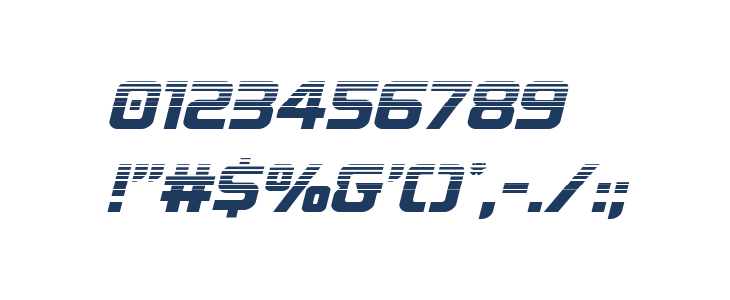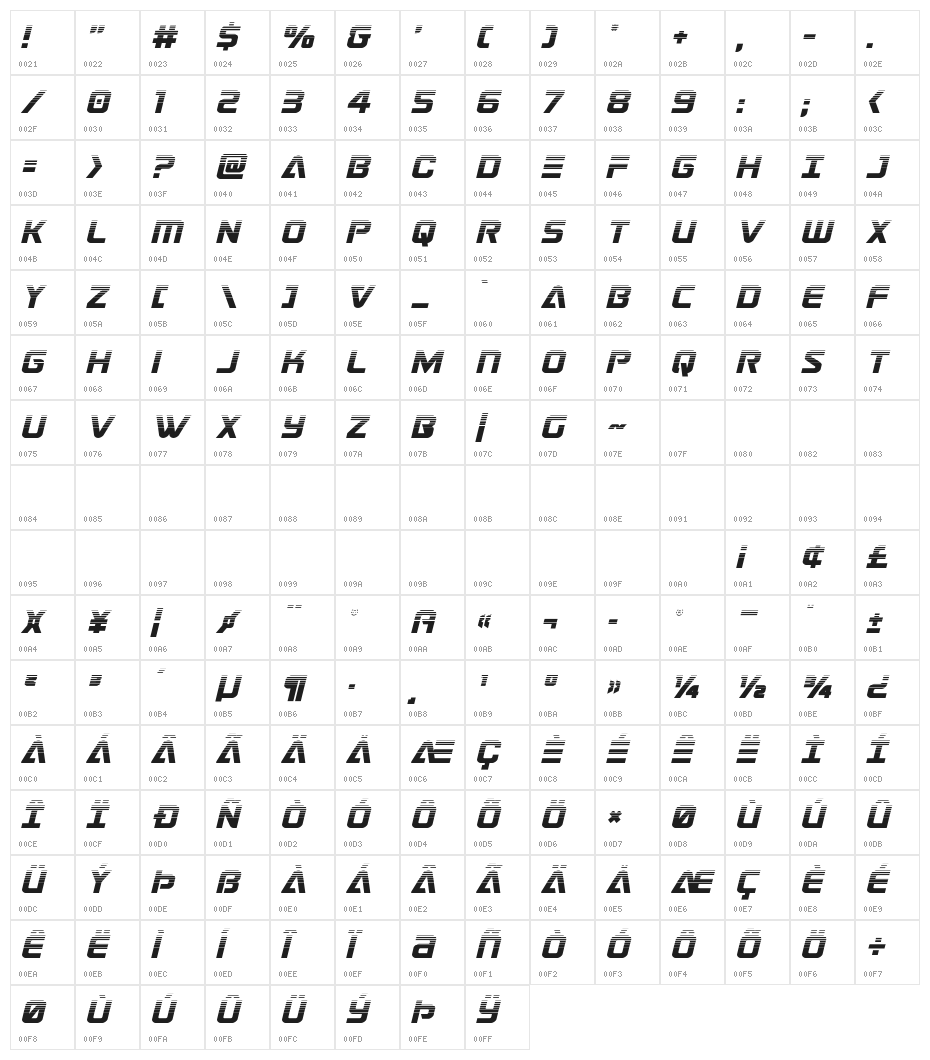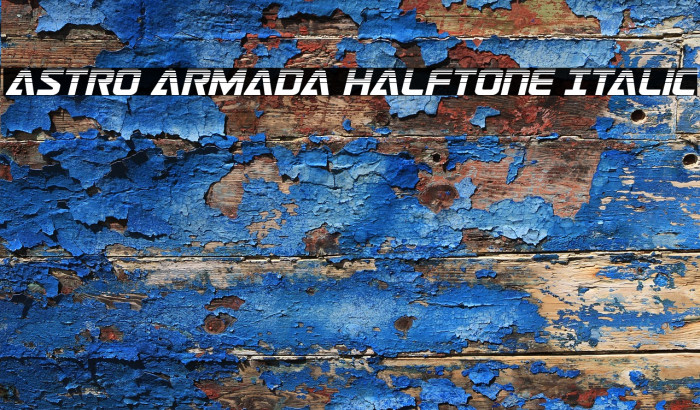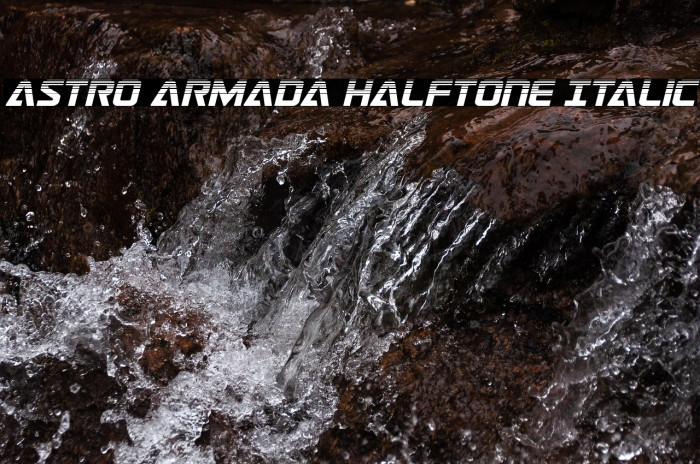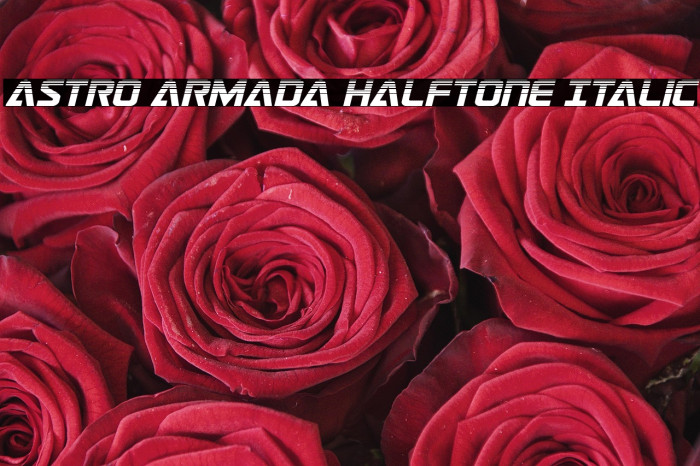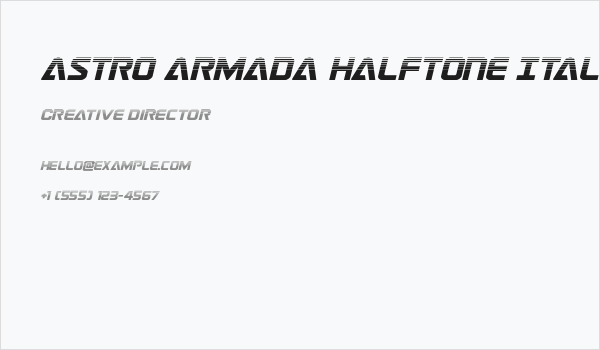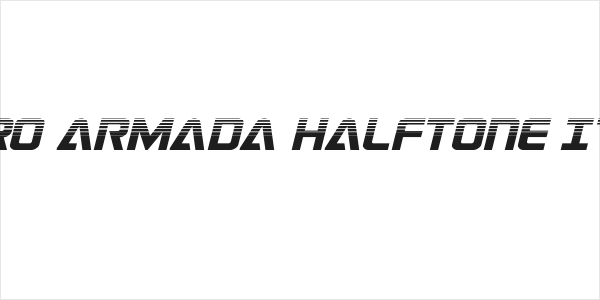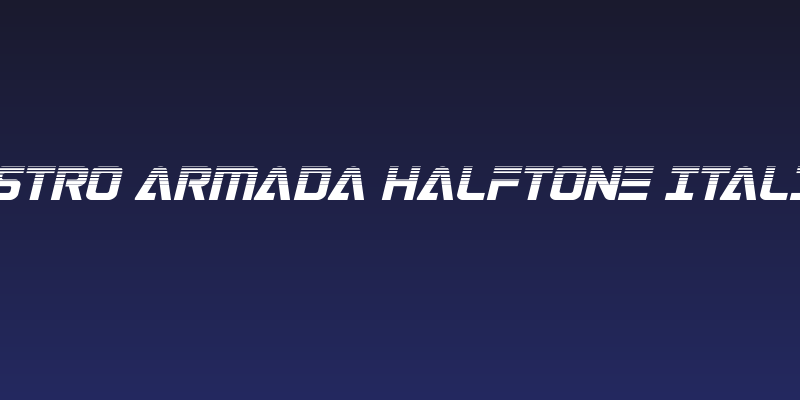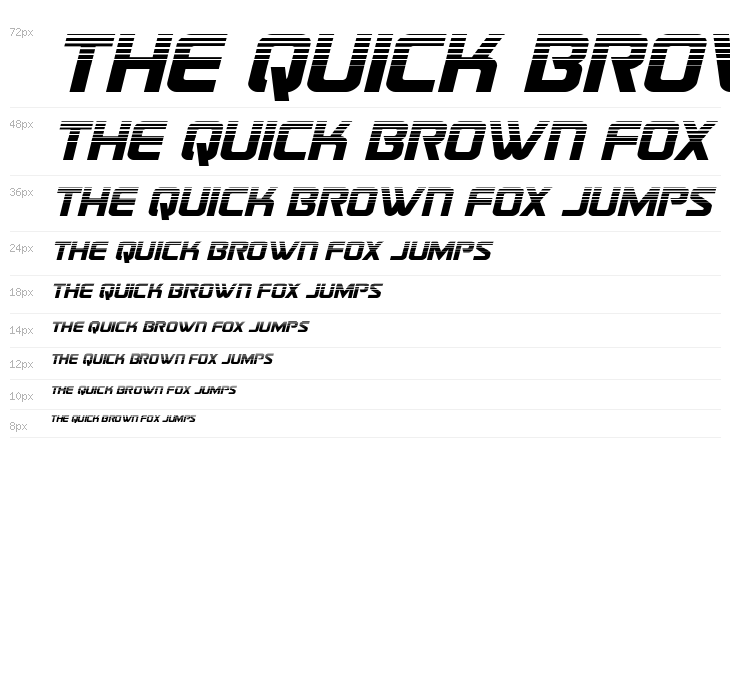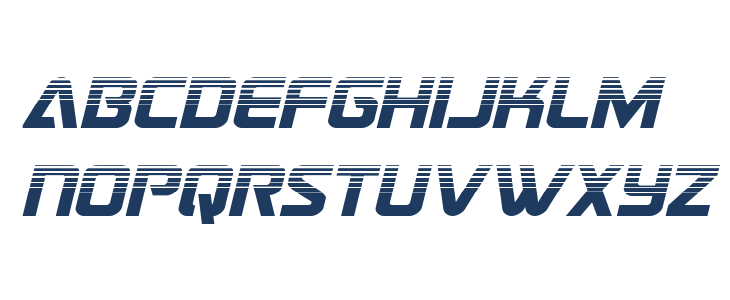
Astro Armada Halftone Italic Font
Astro Armada Halftone Italic Description
This font features a futuristic and dynamic design, characterized by its bold, italicized letters with a halftone effect. The uppercase and lowercase letters, as well as numbers and special characters, are designed with a strong geometric structure, giving it a modern and tech-inspired appearance. The halftone pattern adds a sense of movement and energy, making it ideal for projects that require a bold statement. The font's unique style is suitable for use in digital media, gaming, and sci-fi themed designs.
ASTRO-ARMADA-HALFTONE-ITALIC UPPERCASE
ASTRO-ARMADA-HALFTONE-ITALIC LOWERCASE
ASTRO-ARMADA-HALFTONE-ITALIC OTHER CHARS